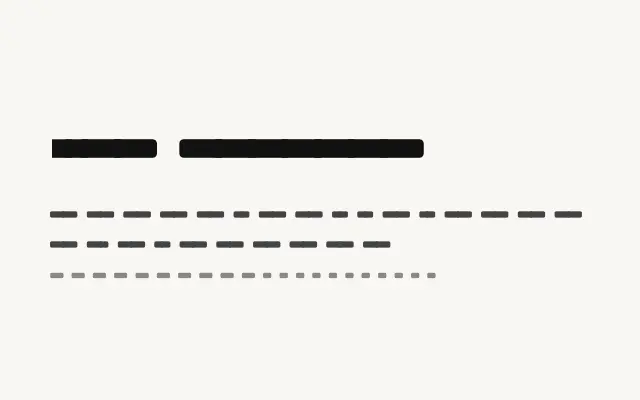
Flow Rounded
A rounded modular display typeface that softens the rigid block construction of the Flow series into approachable pill-shaped units.
Flow Rounded occupies the middle ground in the Flow family, using rounded rectangular segments to build each letterform with a friendlier, less severe character than Flow Block. The consistent module size gives it a disciplined, grid-based logic while the rounded corners add warmth. It suits playful branding, children's media, or any headline context calling for structured yet inviting display lettering.
The third variant in the Flow series, this face uses rounded rectangular or pill-shaped modules to construct letterforms, blending the solidity of Flow Block with the softness of Flow Circular.